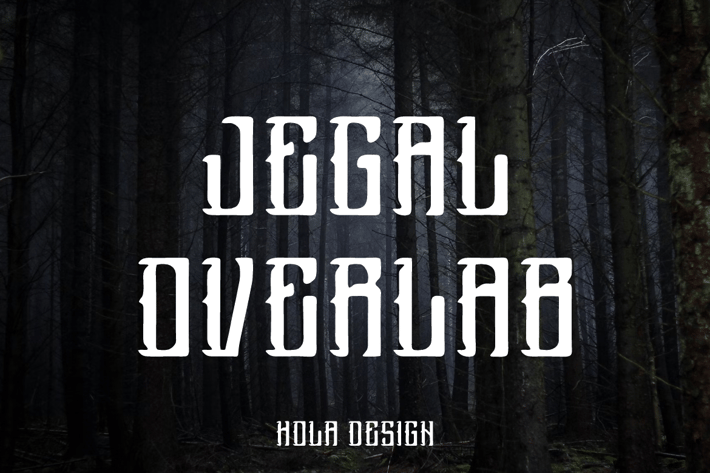
Jegal Overlab - Decorative Font
Jegal Overlab Font is unique . Ready to use for your design like labeling, movie sceen, poster, movie title, gigs, album covers, logos, and much more.